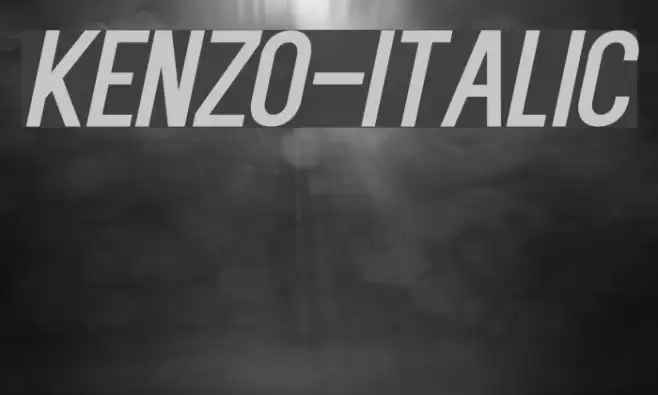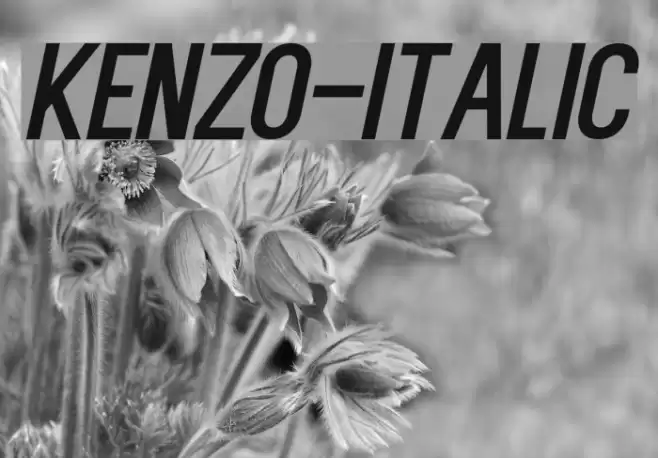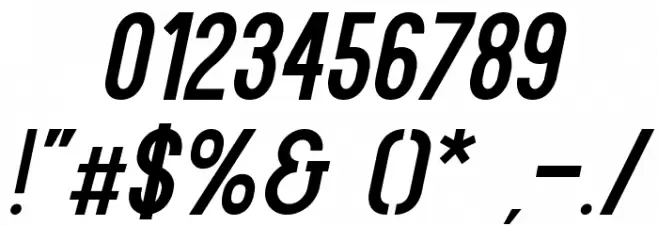
Kenzo-Italic Font
Kenzo-Italic Description
This typeface features a sleek and modern design with a distinct italic slant, giving it a dynamic and forward-moving appearance. The characters are bold and slightly condensed, providing a strong visual impact. The uppercase and lowercase letters maintain a consistent style, with clean lines and smooth curves. The numbers and special characters are well-integrated, matching the overall aesthetic of the font. The stroke contrast is low, ensuring readability while maintaining a stylish look. This font is versatile, suitable for various design projects that require a contemporary and energetic feel.
A modern, italic typeface with bold, condensed characters and low contrast from Uncategorized fonts.
- Proposed Projects: Ideal for branding, advertising, headlines, and modern web design.
- Use Case: Headlines, Logos, Branding